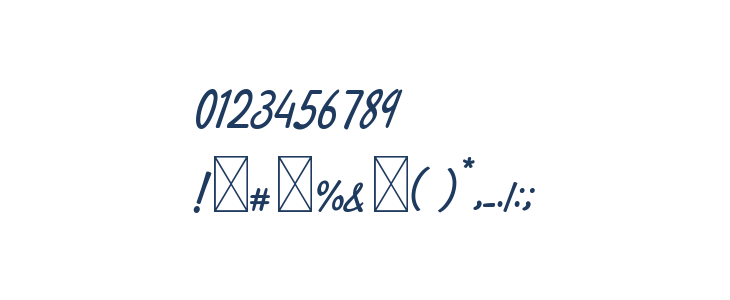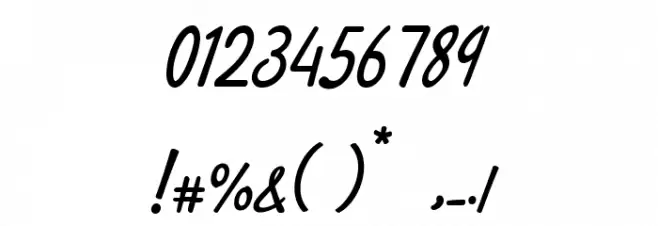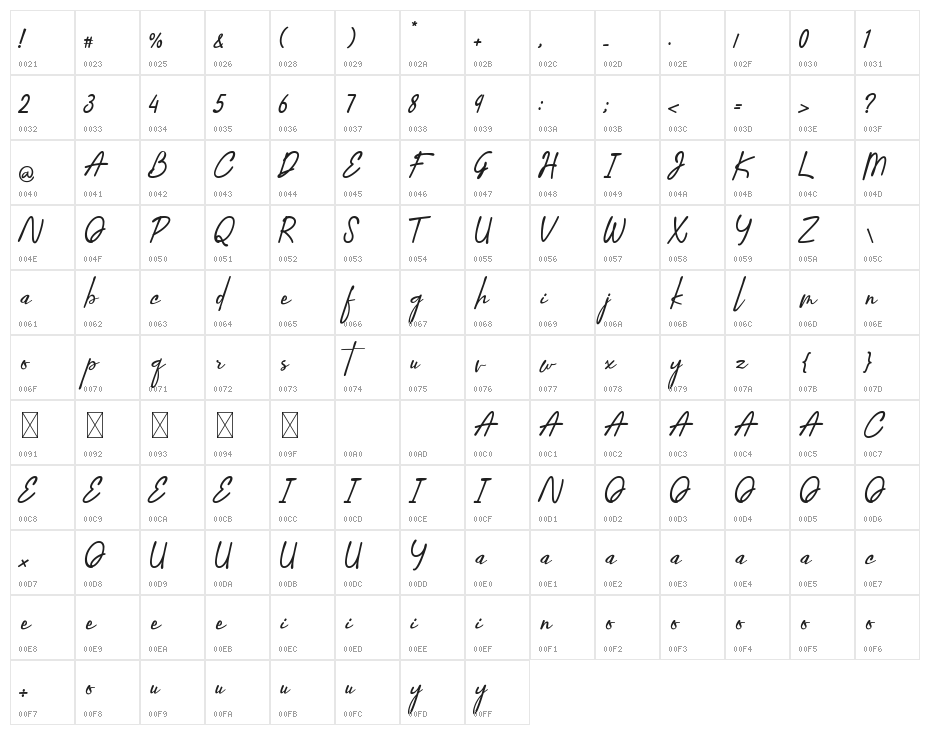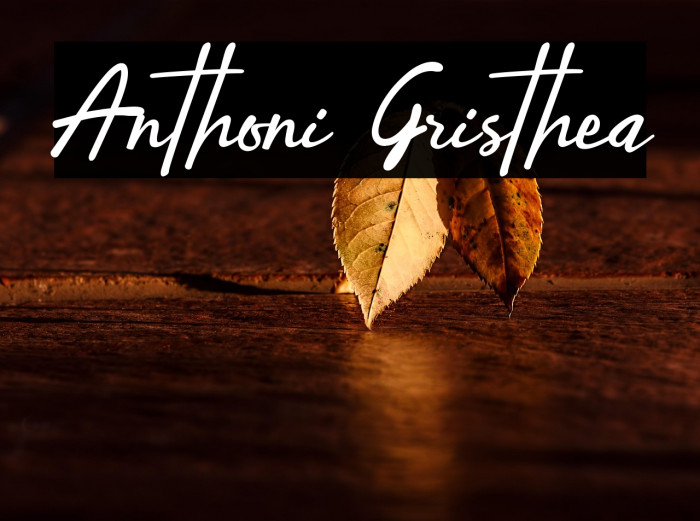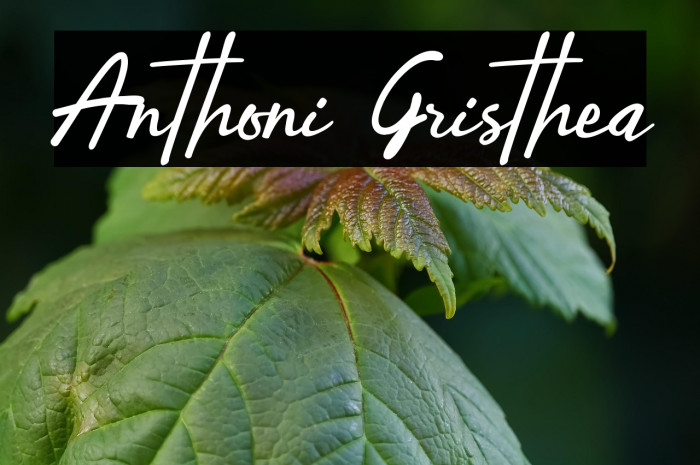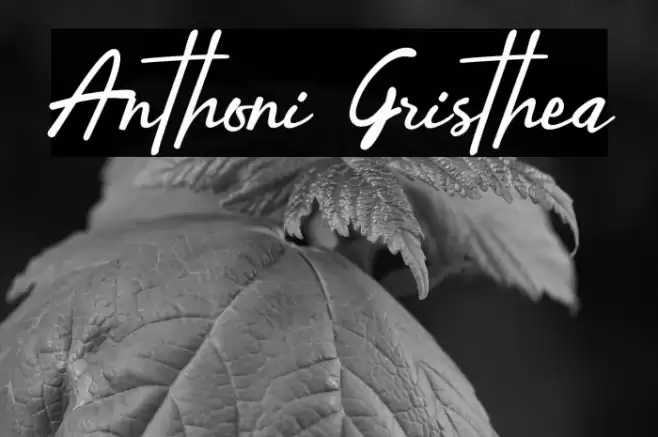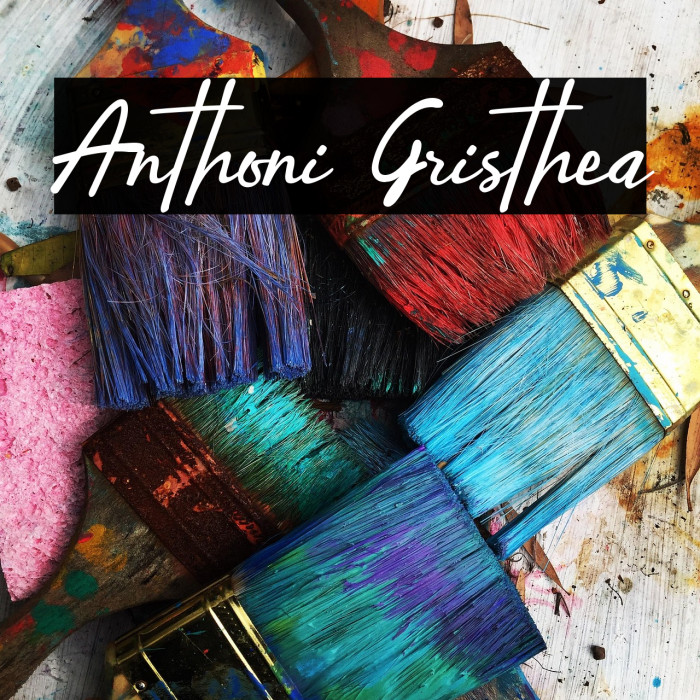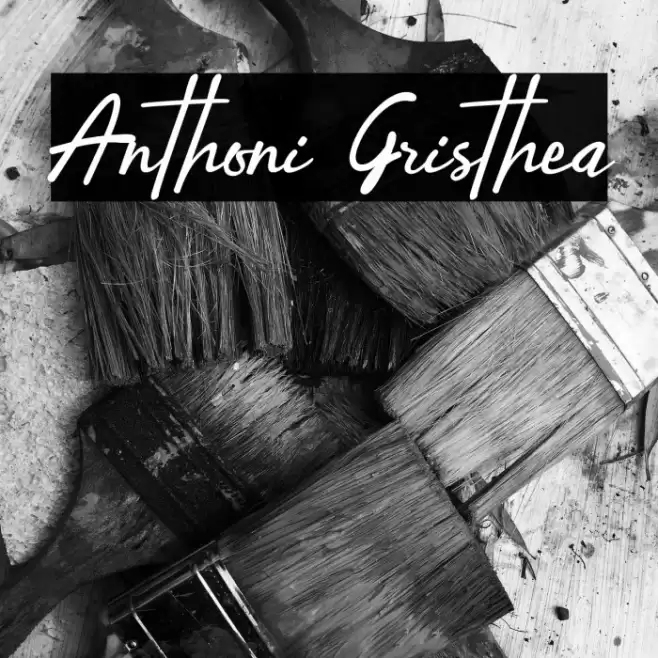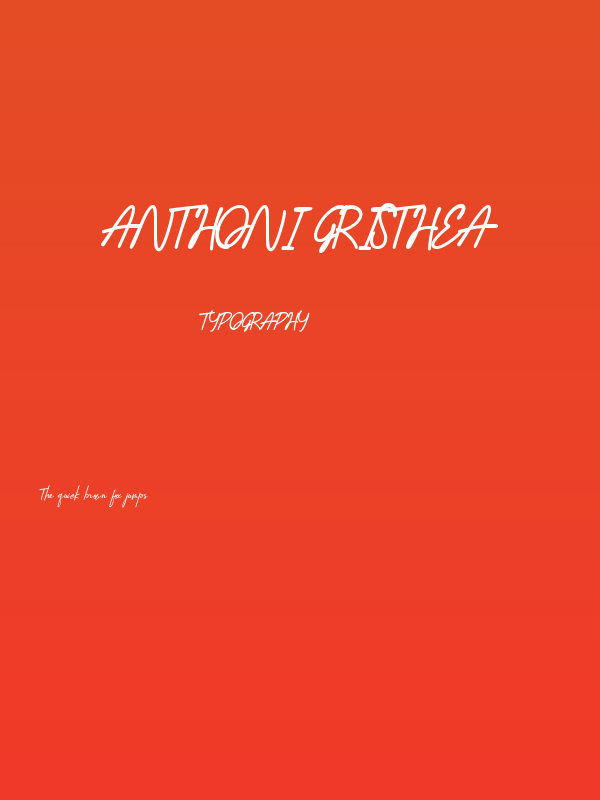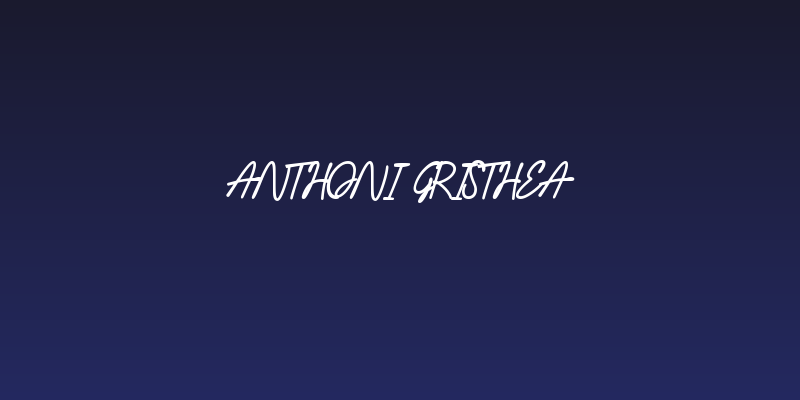
Anthoni Gristhea Font
Anthoni Gristhea Description
This font features a dynamic and fluid script style, characterized by its smooth, flowing lines and elegant curves. The letters are connected in a cursive manner, giving it a handwritten appearance that exudes sophistication and charm. The uppercase letters are bold and prominent, while the lowercase letters maintain a consistent flow, enhancing readability. Numbers and special characters are designed to complement the overall aesthetic, maintaining the same fluidity and style. This font is ideal for projects that require a personal touch or a sense of elegance.